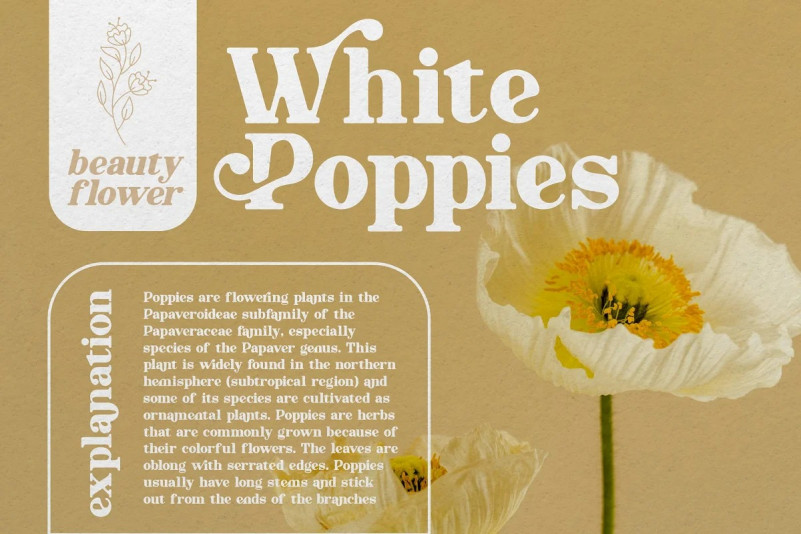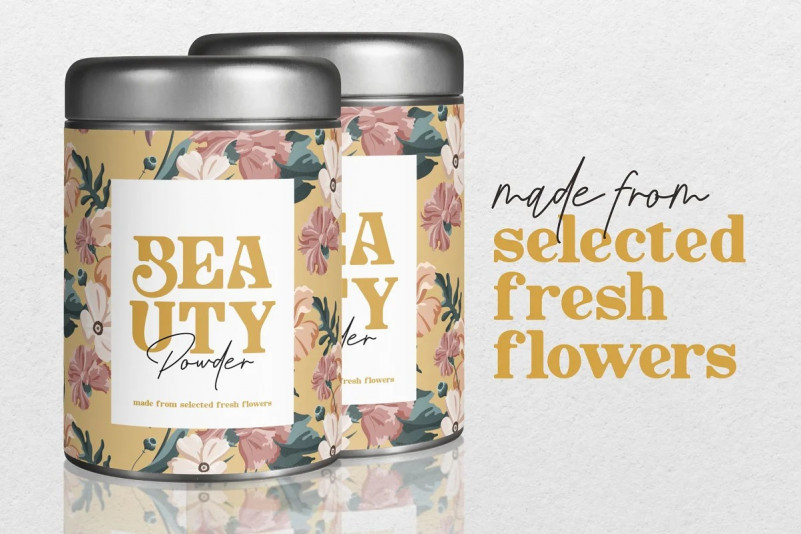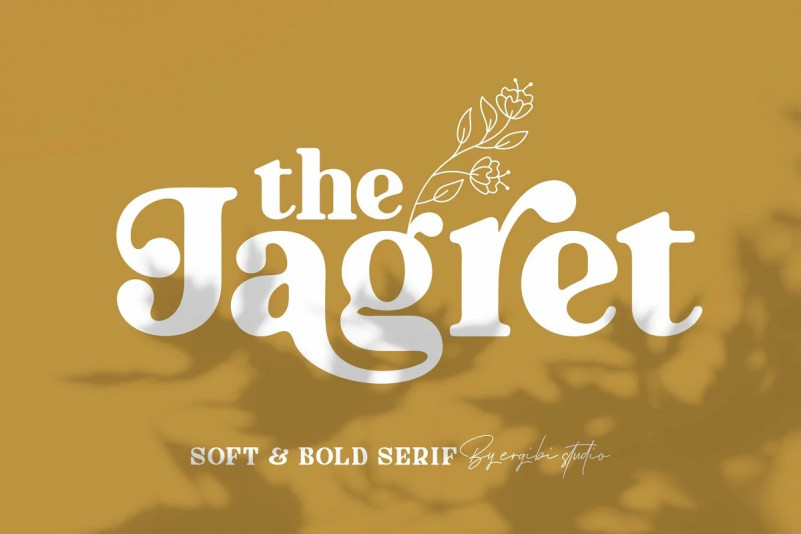
The Jagret Font
Jagret Serif Font is a Soft and Bold serif, The many alternate character on serif makes this typeface unique and stands out rather than the regular sans font, perfectly for headlines, logos, posters, packaging, T-shirts,coffee shops, restaurants, magazine’s headers, signs or gift/post cards,cafe’s and weddings or any type of advertising purpose.With italic version that you can use as a complimentary!